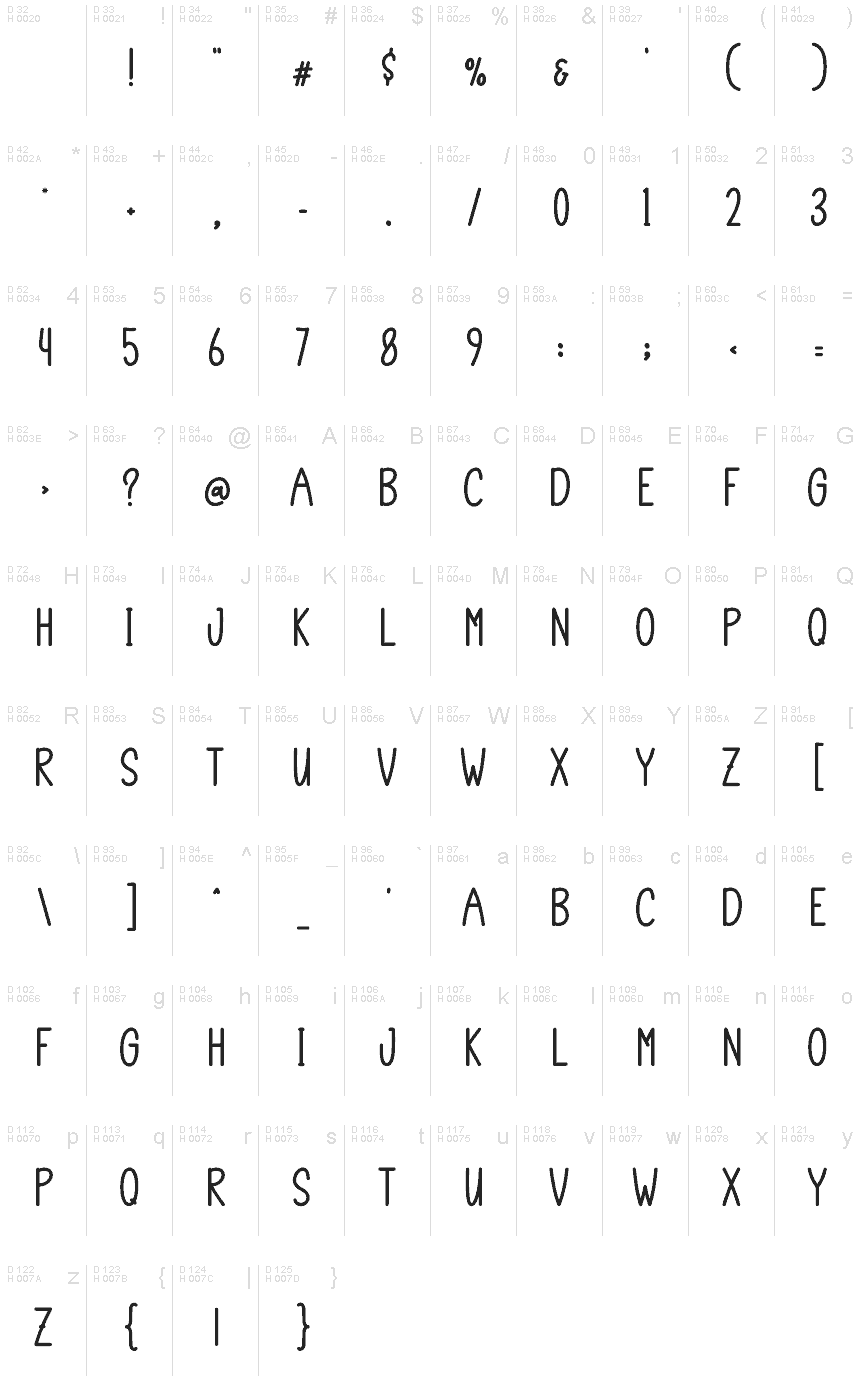
Summer Dream
Summer Dream font by Andi Moz is a beautifully handwritten font with a relaxed and whimsical touch. This condensed font features elegant curves and subtle details that give it a modern appeal. Summer Dream can instantaneously transform your designs with its free charming appearance to support the messages you want to reach to your audience.
The font is fit for use in book covers, magazines, social media posts, photography captions, flyers, posters, product packaging, and more. It can also make an impactful addition to logos and trademarks or engage audiences through branding presentations.